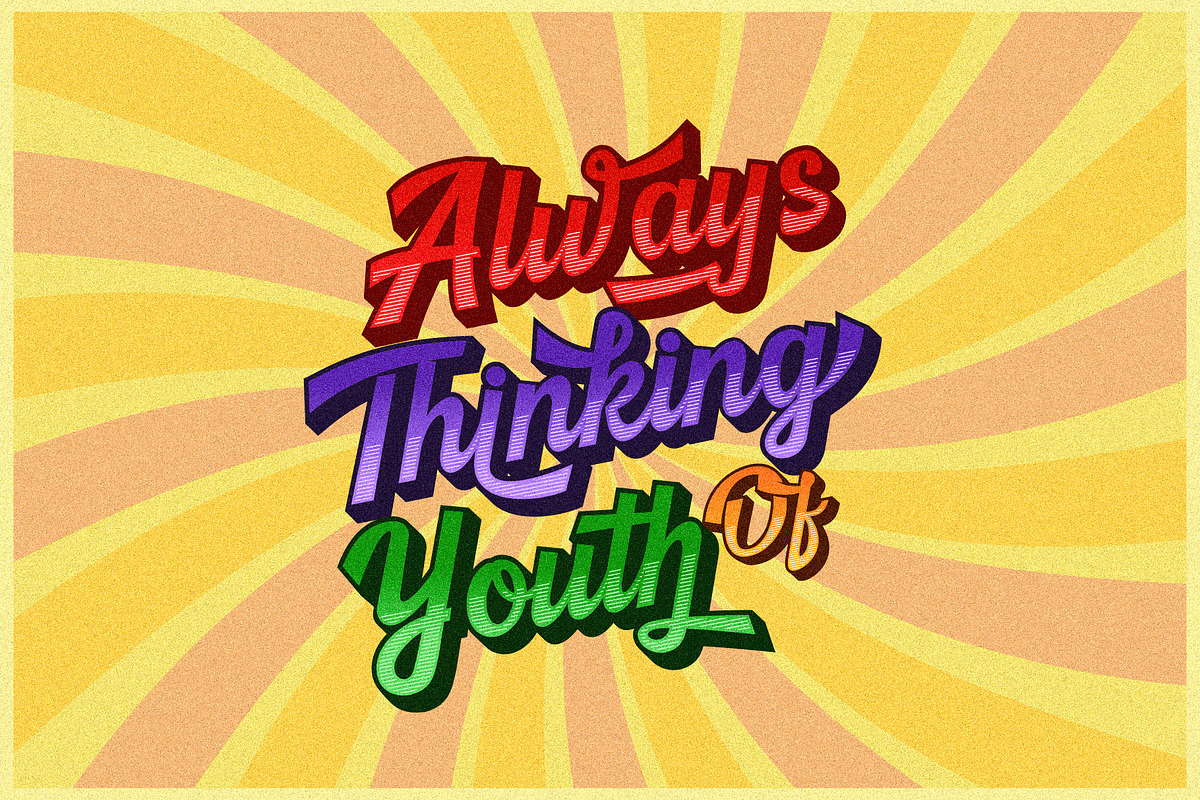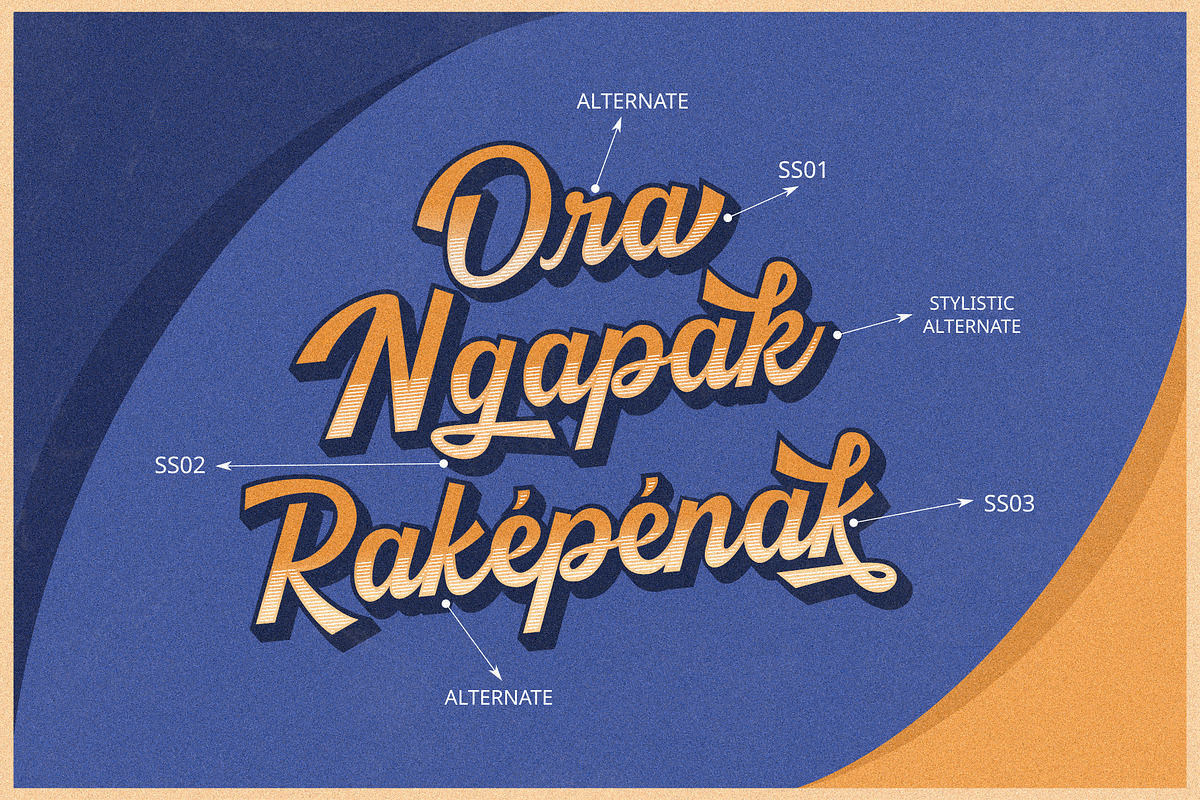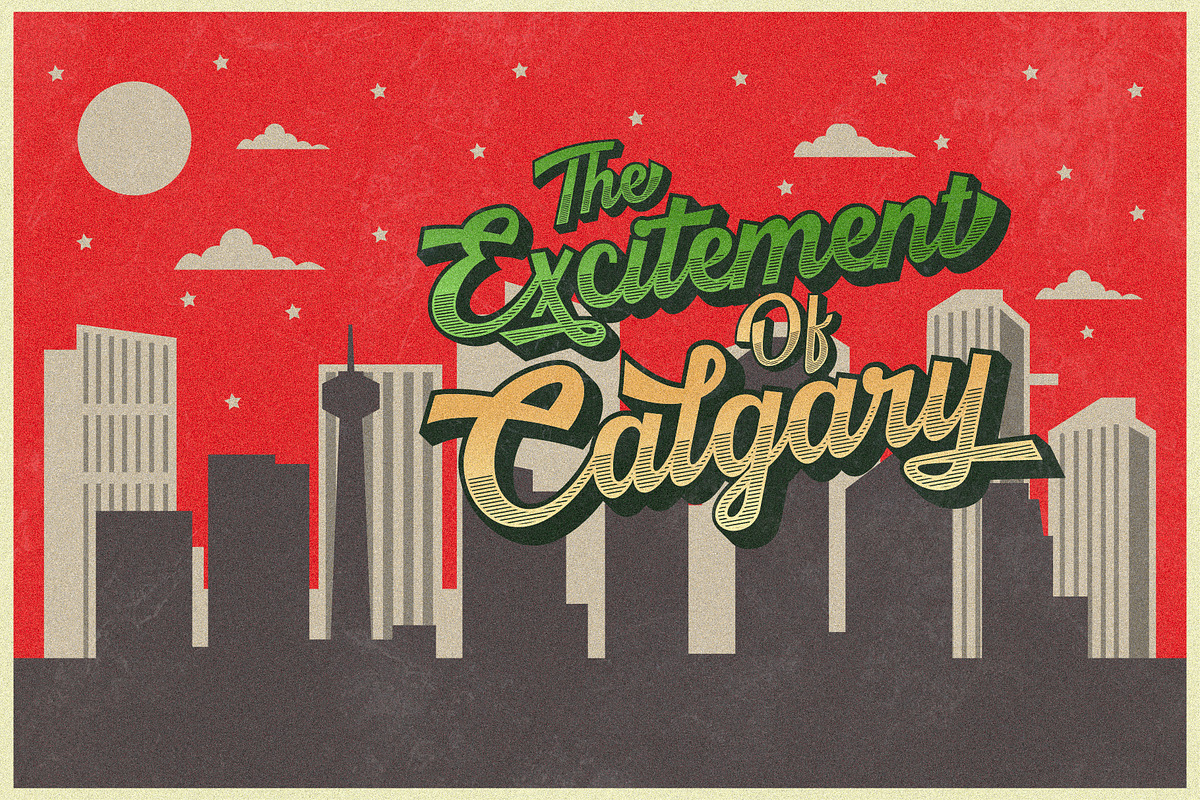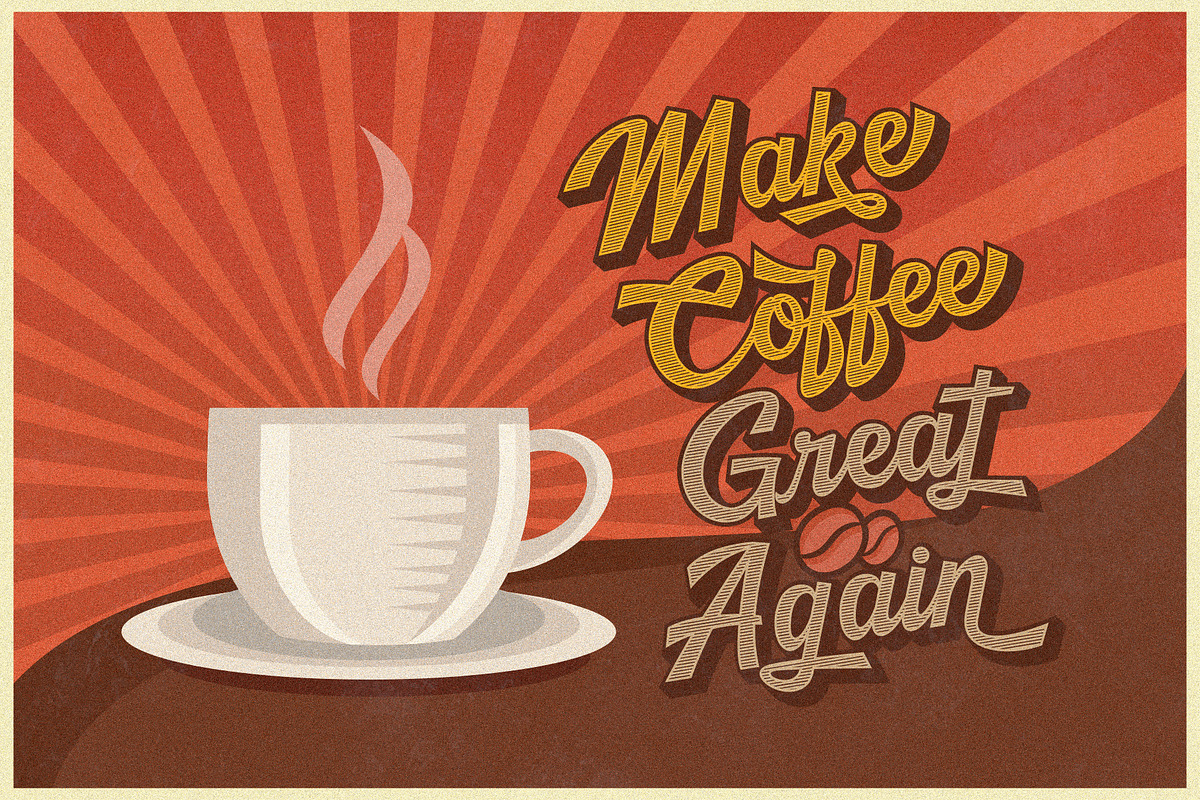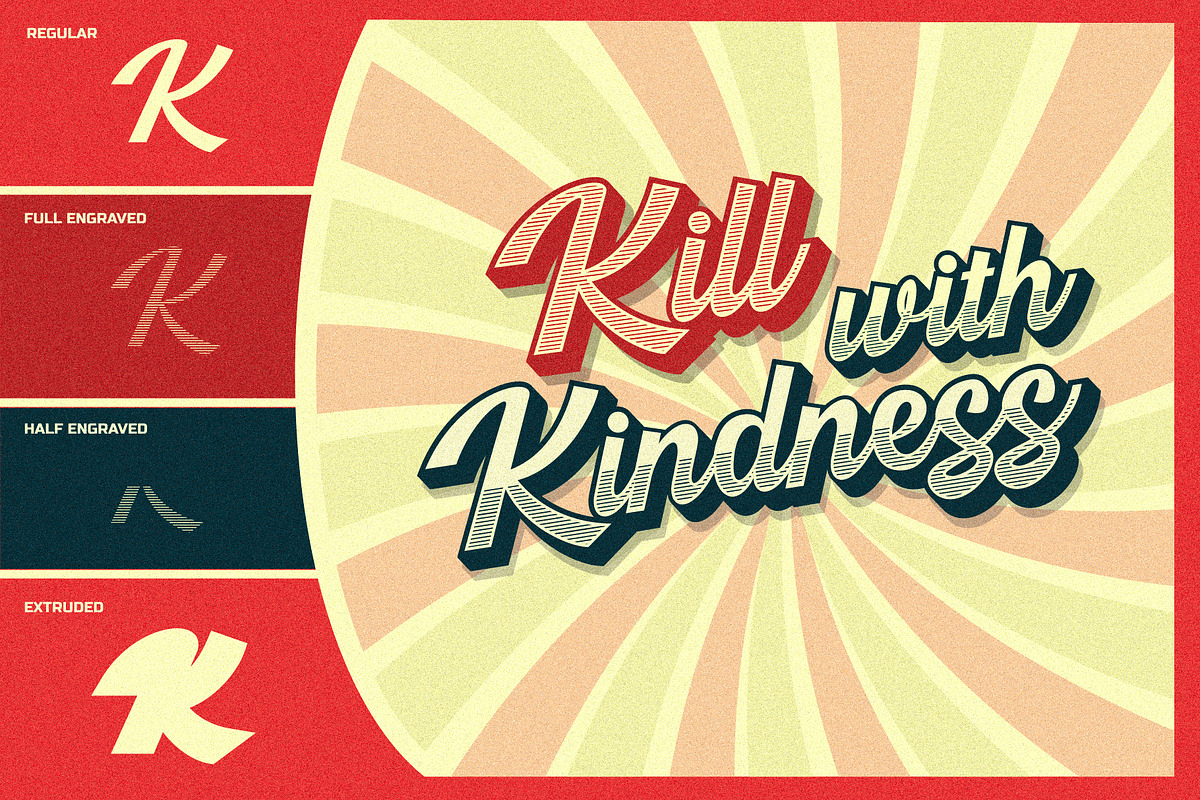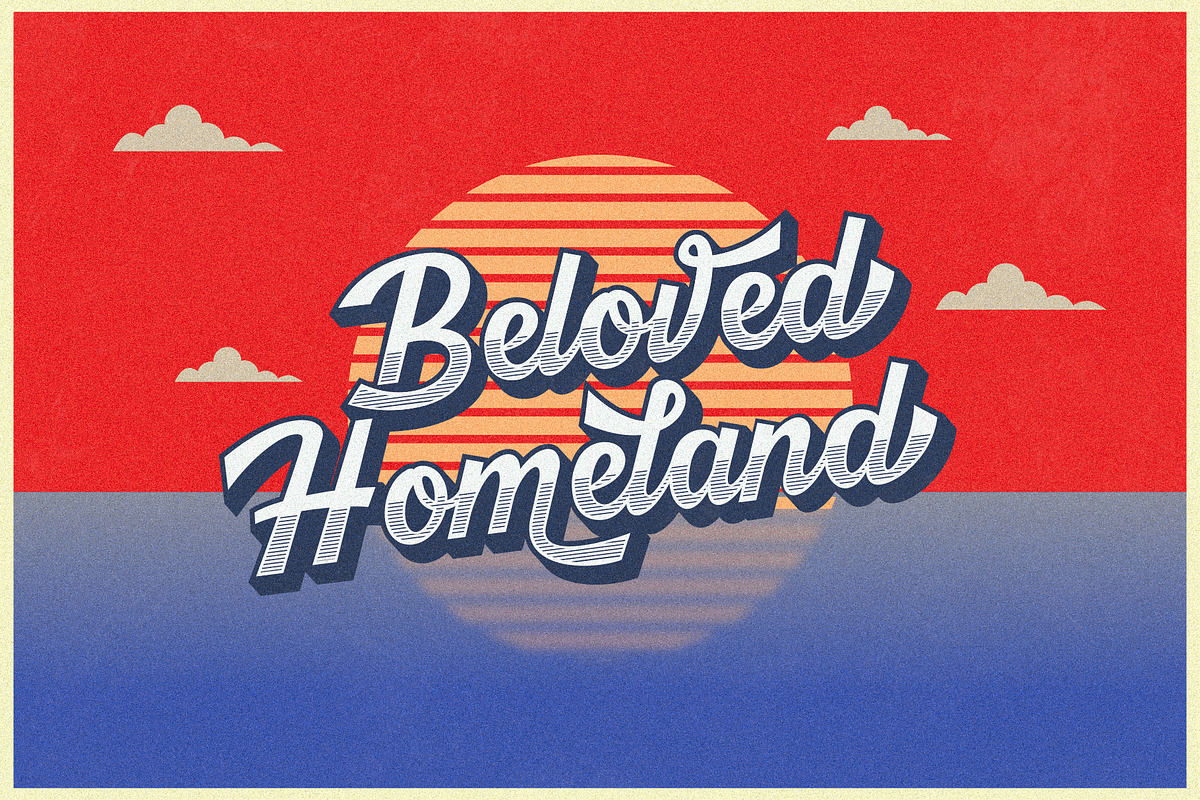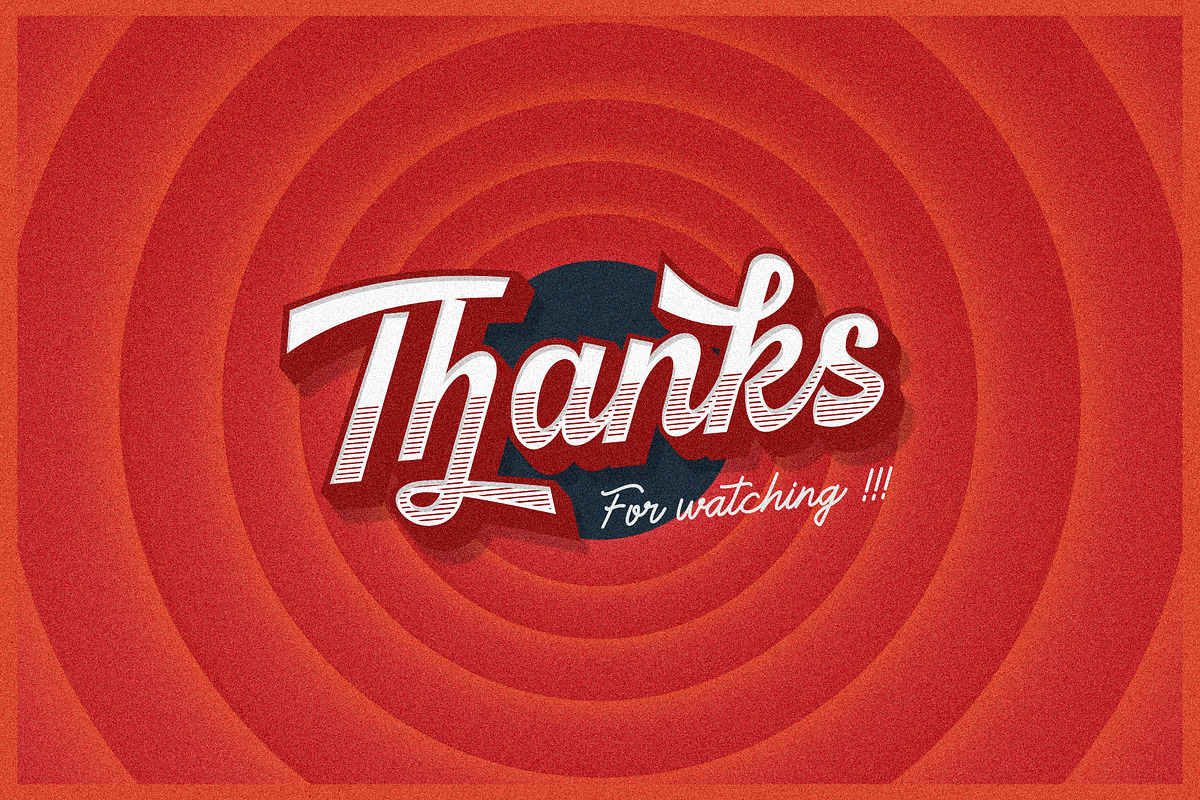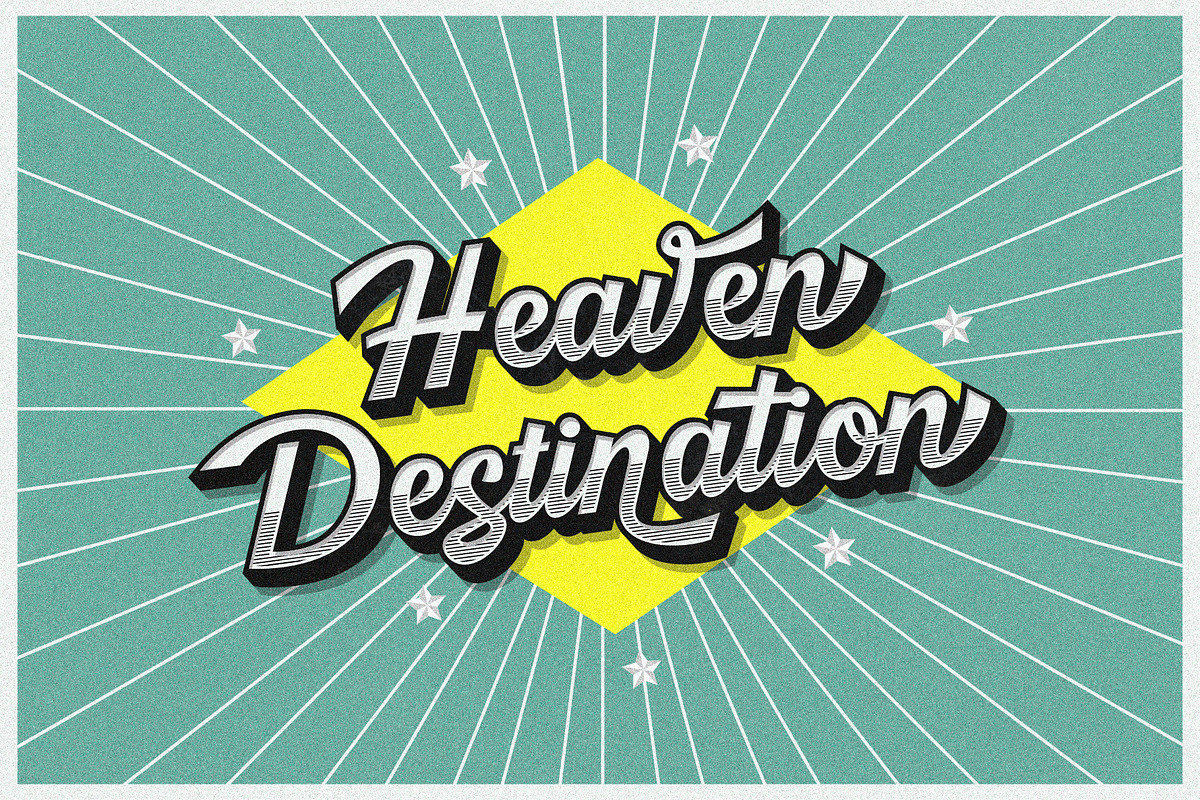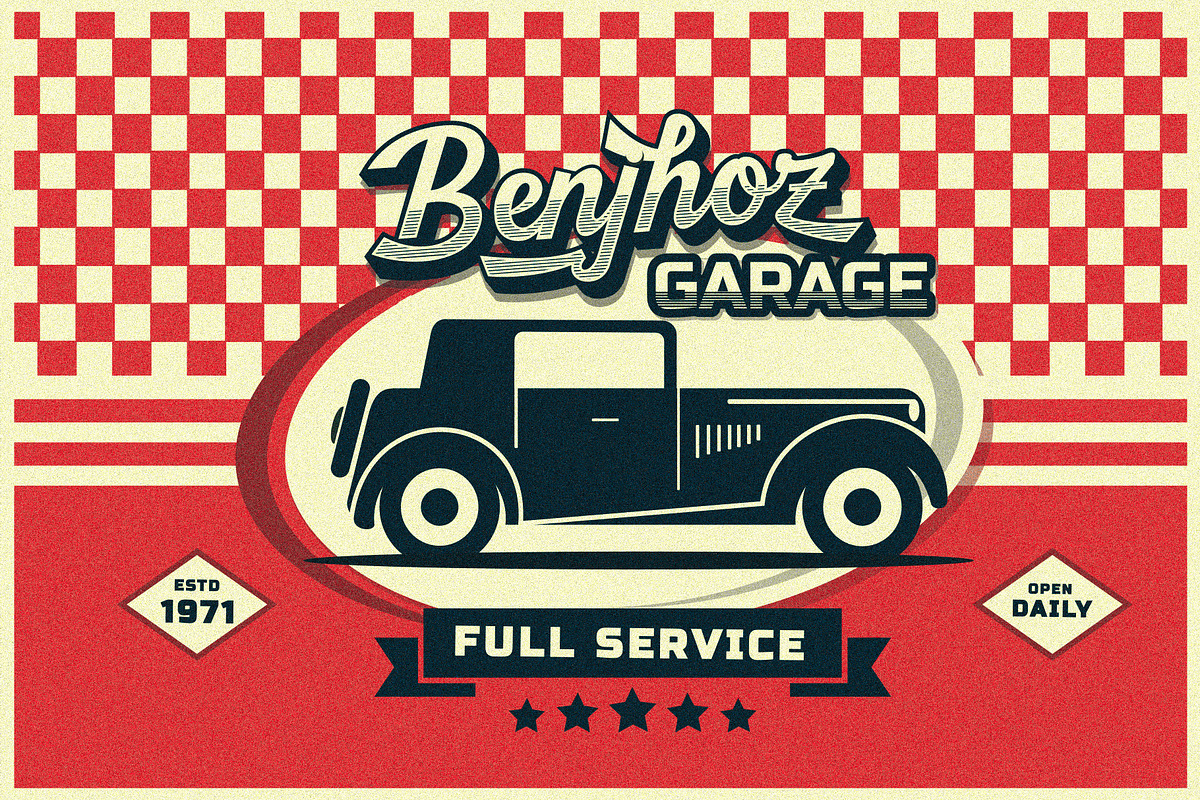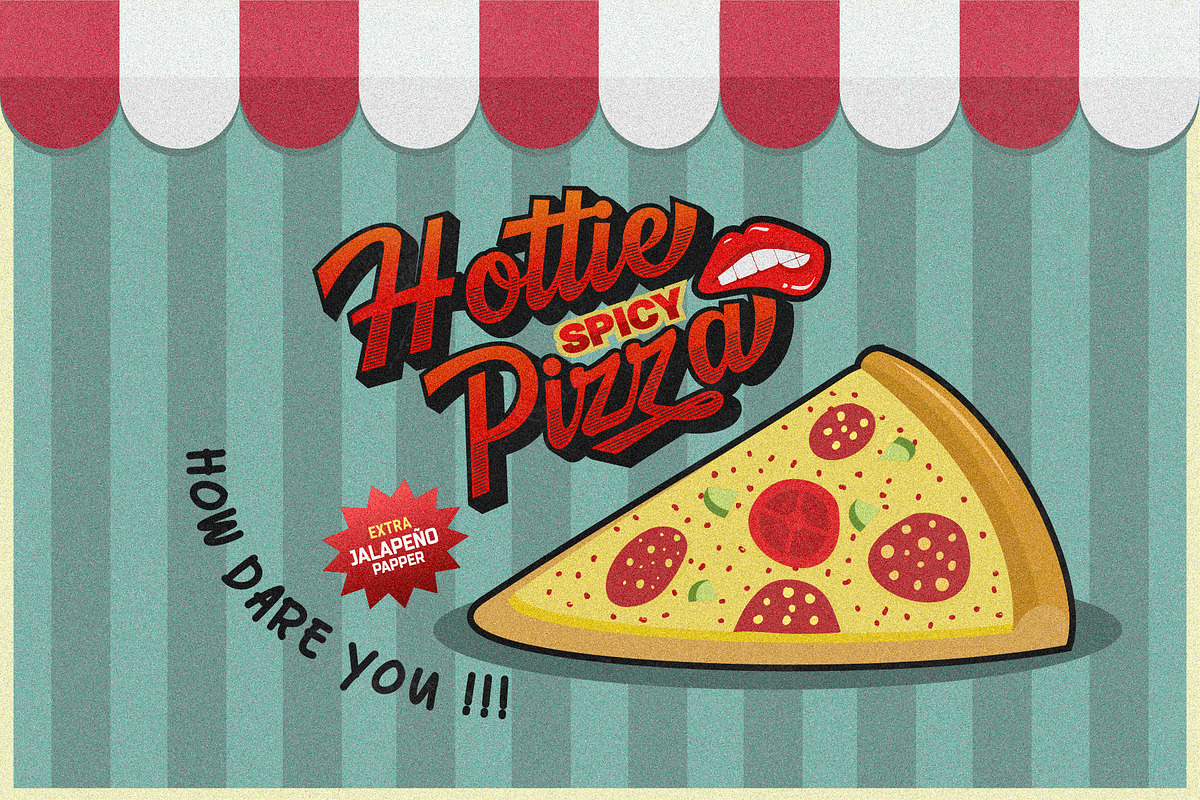
Kingfisher Layered Font
Kingfisher is the layered font that comes up with 2 styles engraved layer. You can save your times to mix and match the styles you need. Kingfisher font has 4 font family, regular, full engraved, half engraved, and extruded. This font is perfect for Logotype, flyer, poster, branding & identity, or application in mobile.
- Opentype features
- 27 multilingual support such as Afrikaans Albanian Catalan Croatian Czech Danish Dutch English Estonian Finnish French German Hungarian Icelandic Italian Latvian Lithuanian Maltese Norwegian Polish Portuguese Slovak Slovenian Spanish Swedish Turkish Zulu